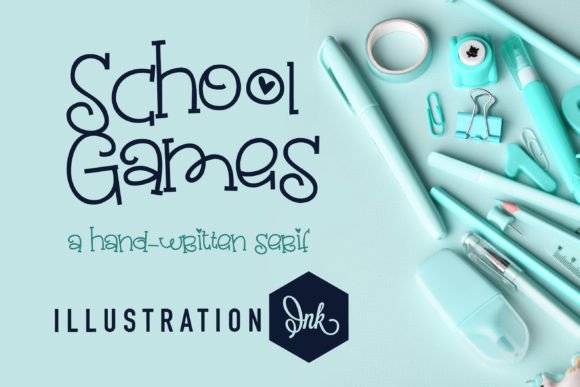
Introducing the School Games Font, the ultimate script font that's perfect for book titles, Serif and more! Created by Illustration Ink, this stunning font is unlike anything you've ever seen before. With its unique, unbalanced handwriting, School Games adds an unparalleled sense of creativity and artistic flair to any project.
Whether you're designing a book cover, crafting a logo, or creating a stunning website, School Games is the ideal choice. Its uneven strokes and distinct character give your designs a touch of edge, making them stand out from the crowd. Plus, with its incredible versatility and eye-catching appeal, School Games is sure to leave a lasting impression on anyone who sees it.
But School Games isn't just a pretty face. Its functionality is just as impressive as its appearance. With its bold, legible lettering, School Games is easy to read and perfect for conveying important messages in a clear and concise manner. And with its extensive range of characters and symbols, you'll have everything you need to create the perfect design.